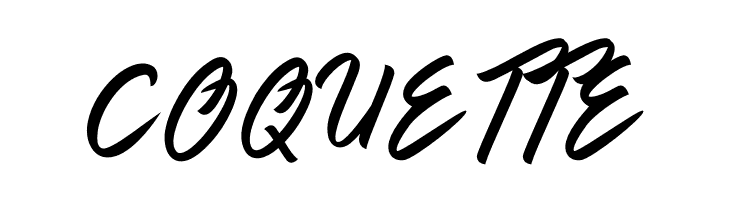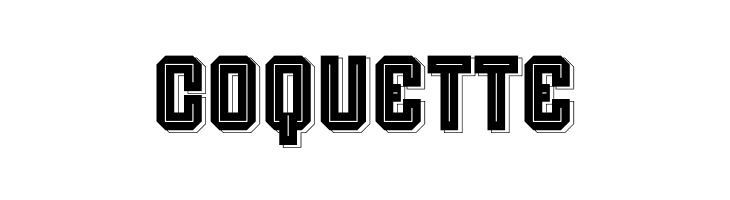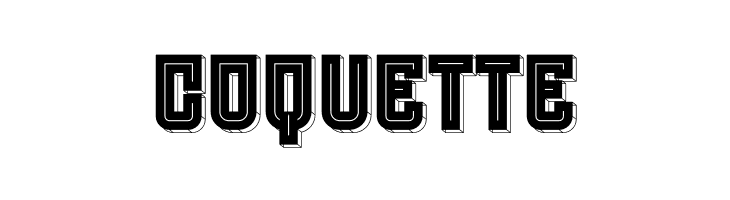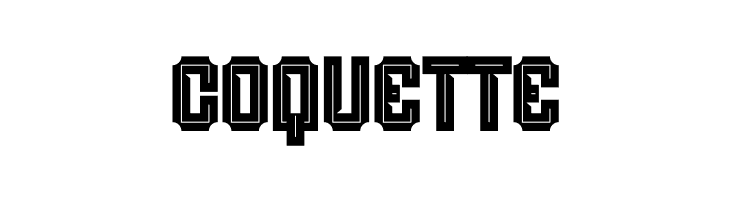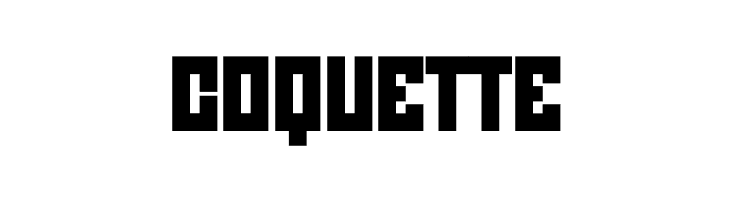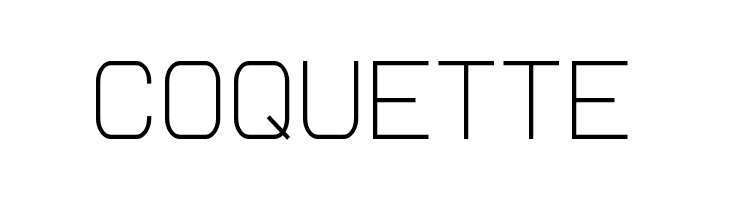
A modern, geometric font with bold, angular shapes and a futuristic style.
A bold, geometric font with uniform stroke width and square outlines.
A bold, modern font with a futuristic and geometric design.
A playful, hand-drawn font with tall, narrow characters and a whimsical style.
A bold, high-contrast serif font with a modern yet classic appeal.
A graceful cursive font with elegant, flowing characters.
A graceful and flowing script font with elegant, fluid strokes.
An elegant, decorative script font with intricate swirls and flourishes.
A bold, playful handwritten font with rounded edges and a whimsical touch.
A dynamic script font with fluid, interconnected strokes and an expressive style.
A bold, dynamic serif font with high contrast and a modern flair.
A bold, italicized font with high contrast and dynamic elegance.
A bold, oblique serif font with high contrast and dynamic style.
A bold, expressive script font with flowing, cursive letterforms.
A bold, dynamic serif font with a classic yet modern appeal.
A bold, italic serif font with strong diagonal emphasis and high contrast.
A bold, oblique serif font with dynamic and elegant characteristics.
A playful, heart-themed font with a hand-drawn feel, perfect for romantic designs.
A bold, expressive script font with dynamic, flowing strokes.
A flowing, cursive font with elegant, interconnected characters.
A modern, geometric sans-serif typeface with clean lines and uniform strokes.
A modern sans-serif font with a clean, balanced design and slightly condensed structure.
A modern sans-serif font with a clean, outlined style.
A modern sans-serif outline font with geometric and minimalistic design.
A playful and flowing script font with elegant curves and a handwritten style.
A playful, whimsical script font with elegant, flowing characters.
A fluid and elegant script font with interconnected strokes and a natural handwriting style.
A graceful script font with fluid, connected strokes and a natural handwriting style.
A dynamic, cursive script font with elegant, flowing lines and decorative swashes.
A cursive, handwritten-style font with elegant, flowing strokes.
An elegant and ornate script font with flowing, intricate letterforms.
A modern, handwritten cursive font with elegant, fluid strokes.
A bold, decorative font with angular serifs and unique cut-out shapes.
An elegant script font with flowing, ornate swashes and loops.
A modern, elegant handwritten font with fluid, connected characters.